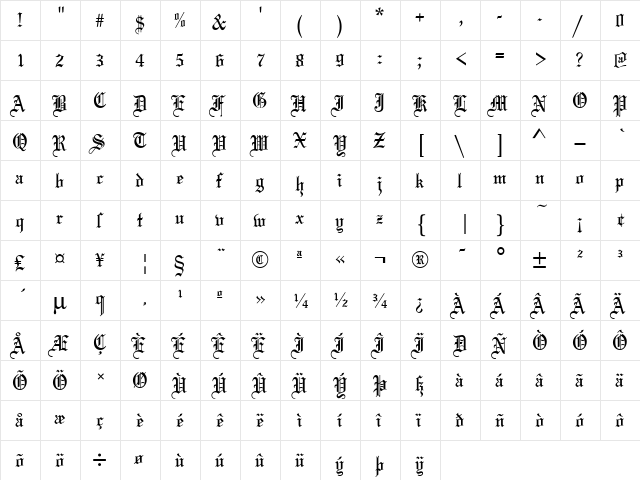
Mariage D Regular Font Preview
Mariage D Regular
Design Context for Mariage D Typeface
Mariage D is a composed and adaptable typeface that performs quietly and consistently across a wide range of design contexts.